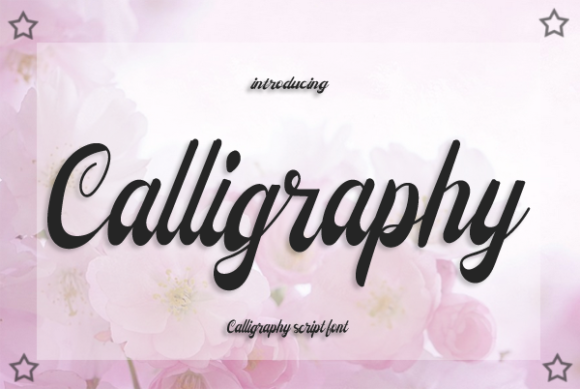
The Timeless Charm of Calligraphy Font: A Designer’s Delight
Calligraphy is a lovely and timeless handwritten font that has become a staple in my design toolkit. It’s the best choice for creating eye-catching logos, branding, and quotes that require a personal touch. Every letter has a unique and beautiful touch, which will make your design come alive!
- ✨ Elegant and sophisticated design that’s perfect for high-end branding
- 💫 Unique and beautiful letterforms that add a personal touch to any design
- 🎨 Versatile and adaptable to various design styles and industries
While Calligraphy Font is an amazing choice for many design projects, there are a few things to keep in mind: 🤔
- ⚠️ Limited availability of certain characters and glyphs, which may require some creative workarounds
- ⚠️ May not be the best choice for very long texts or body copy, as it can be a bit too ornate
A Brief Backstory: The Inspiration Behind Calligraphy Font
Calligraphy Font was inspired by the traditional calligraphy techniques of medieval manuscripts. The font’s creator, a skilled calligrapher and type designer, wanted to capture the essence of hand-written calligraphy in a digital font. The result is a beautiful and timeless font that’s perfect for adding a touch of elegance and sophistication to any design.
Q: What is Calligraphy Font?
A: Calligraphy Font is a digital font that mimics the look and feel of traditional calligraphy. It’s a handwritten font with a unique and beautiful touch that’s perfect for creating eye-catching logos, branding, and quotes.
Q: Is Calligraphy Font suitable for body copy?
A: While Calligraphy Font is highly legible, it’s not the best choice for very long texts or body copy. It’s better suited for headlines, titles, and short paragraphs where you want to make a statement.